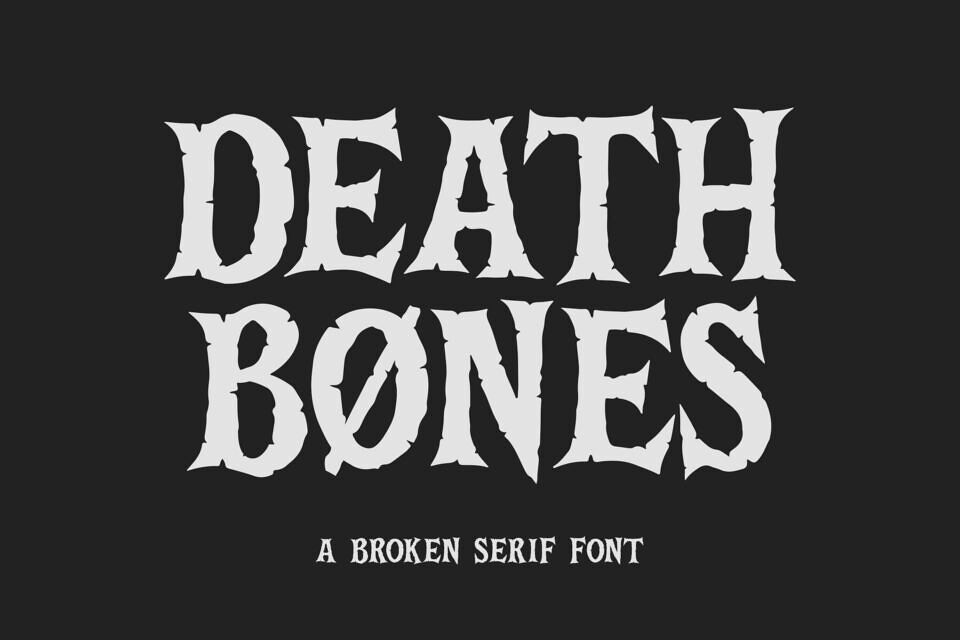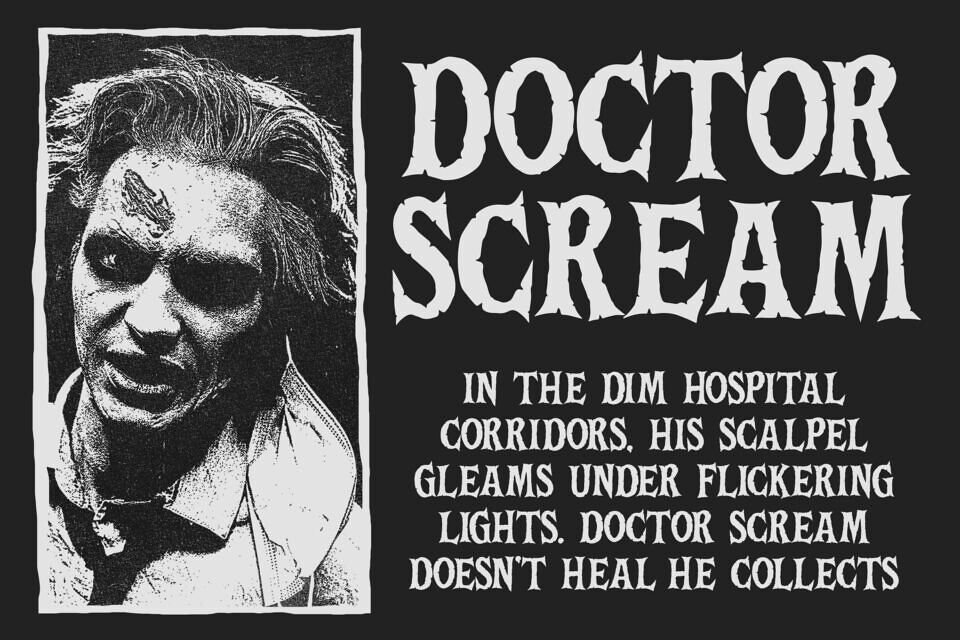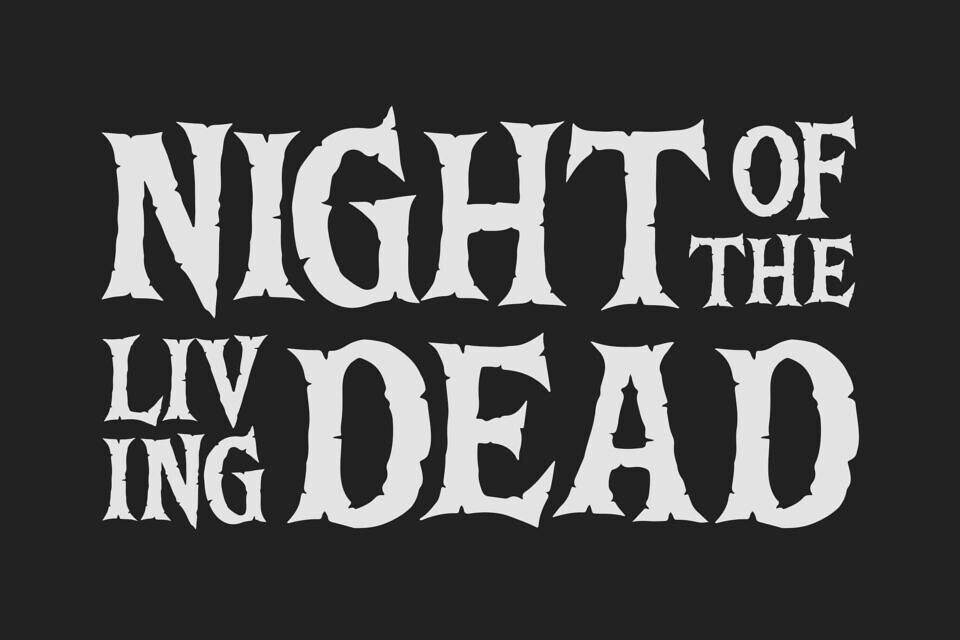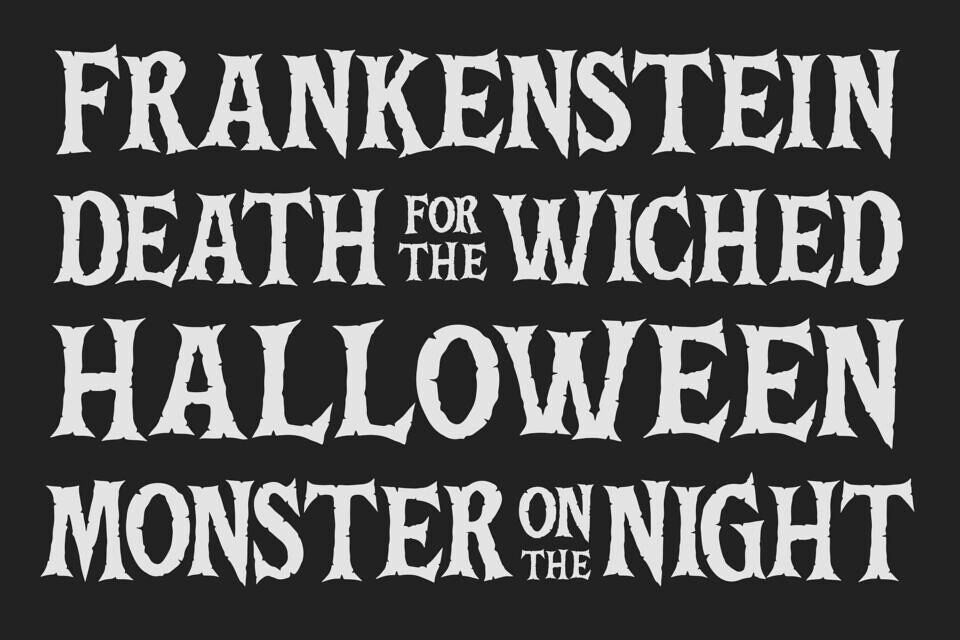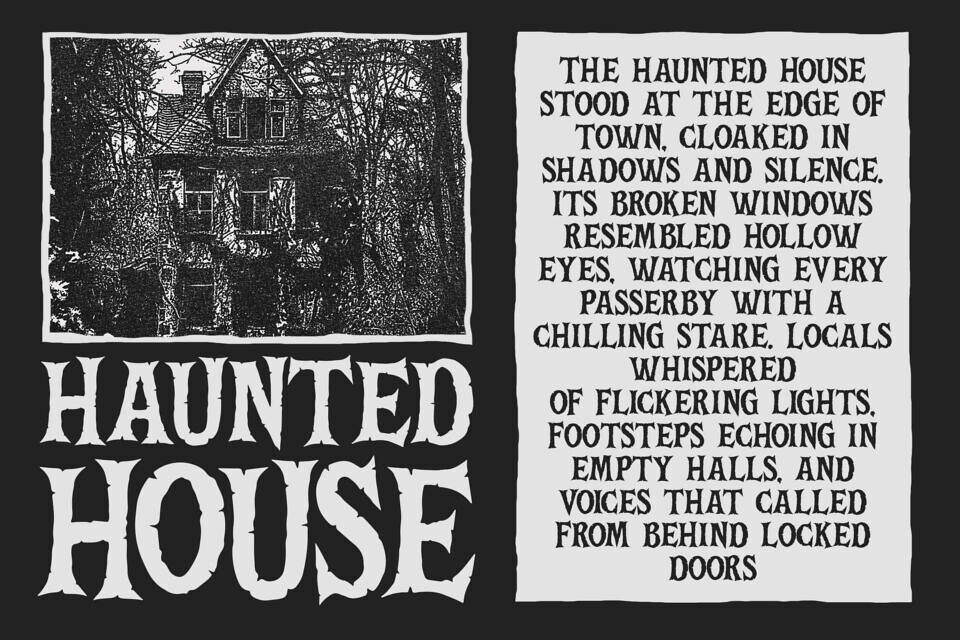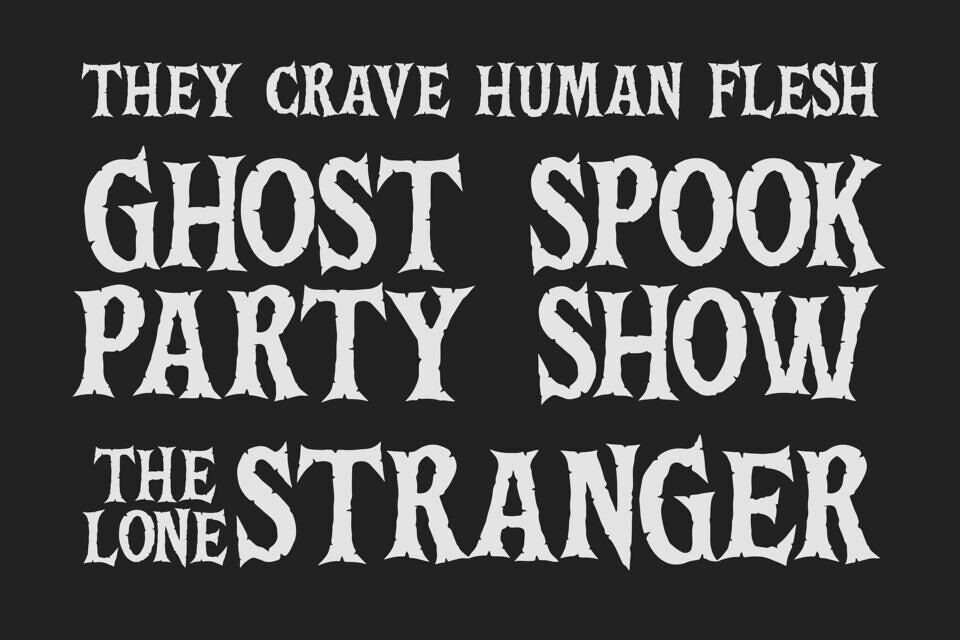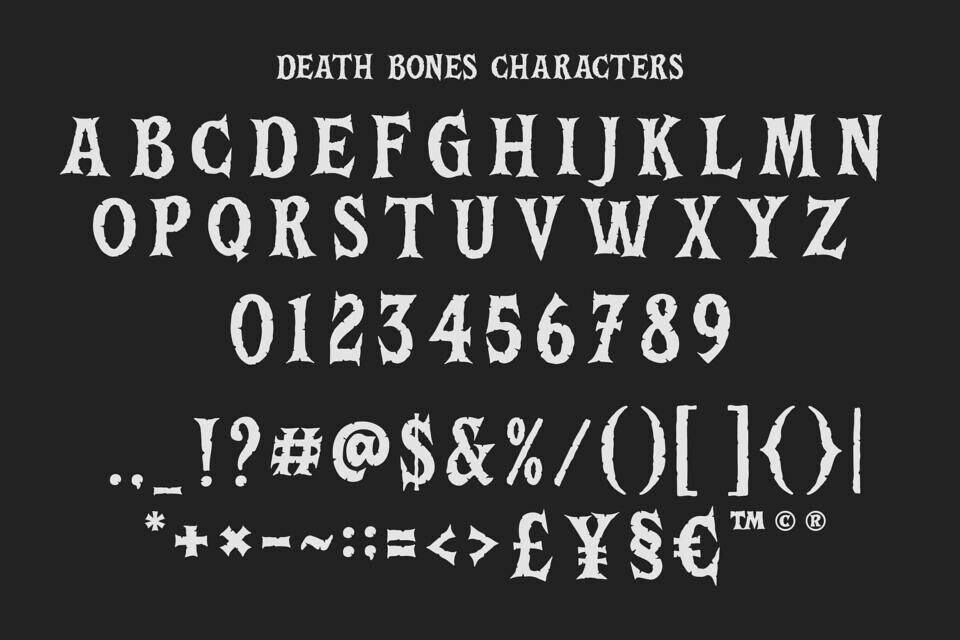
Death Bones is a Broken Serif made for any professional project branding, such as logotype, watermarks, poster, branding, promotions, product packaging, etc. Every letter has a bouncy serif style design.
Death Bones font includes a full set of bouncy serif uppercase and lowercase letters, numerals and punctuation.